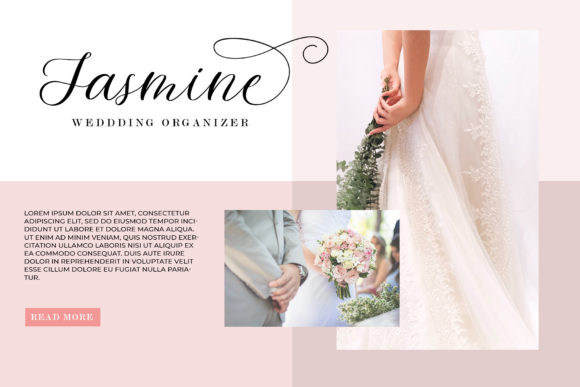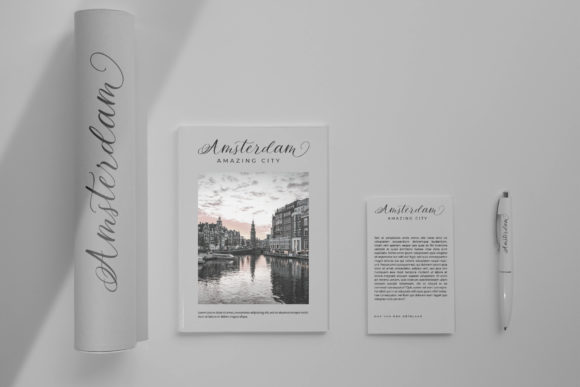
Lovely Angelicia Font
db-ku.com - Script & Handwritten -- Lovely Angelicia is a stylish and dainty script font. It is suitable for any projects such as: logos, branding projects, label, photography, watermark, special events, and all your other lovely projects that need a beautiful script taste. This font is PUA encoded which means you can access all of the glyphs and swashes with ease!